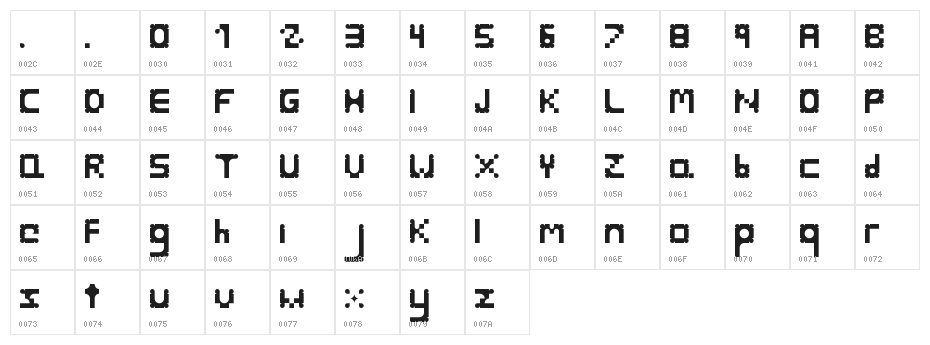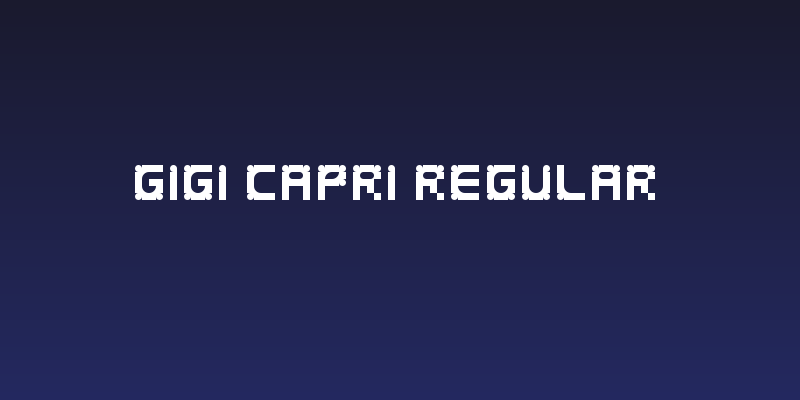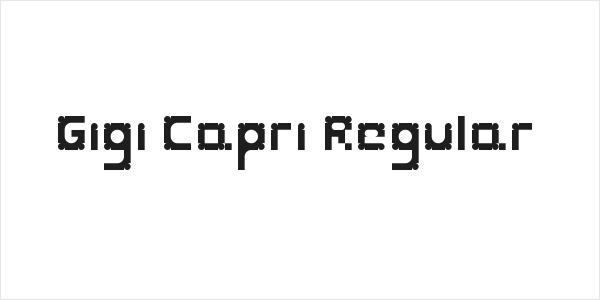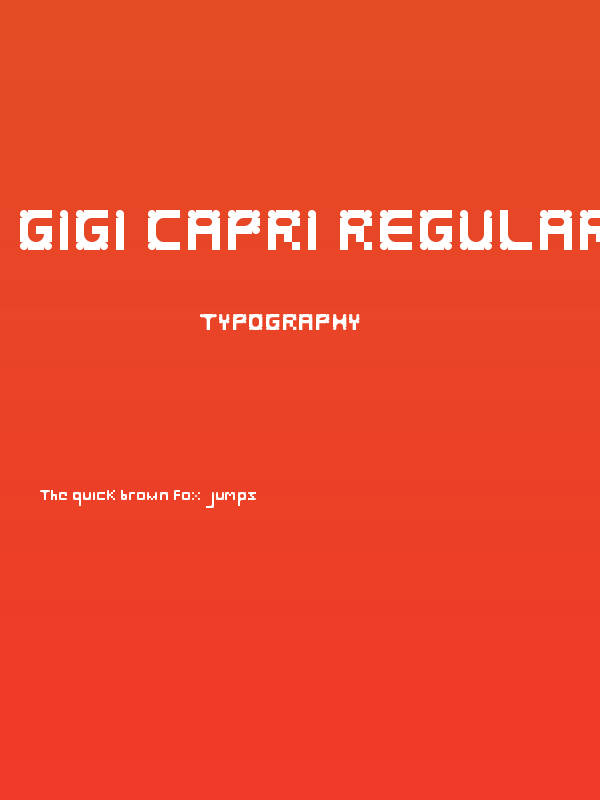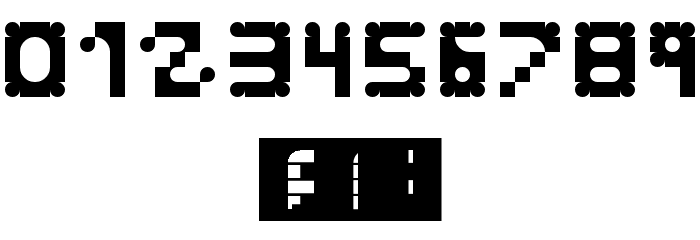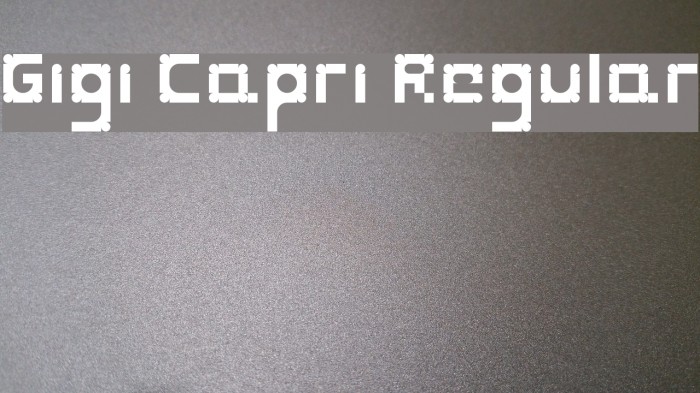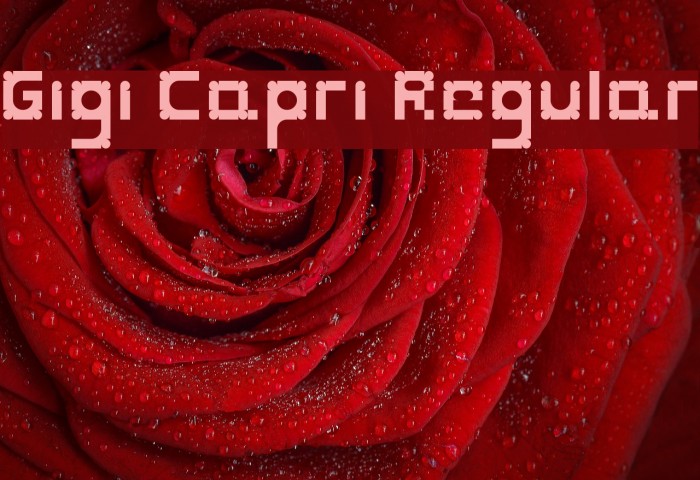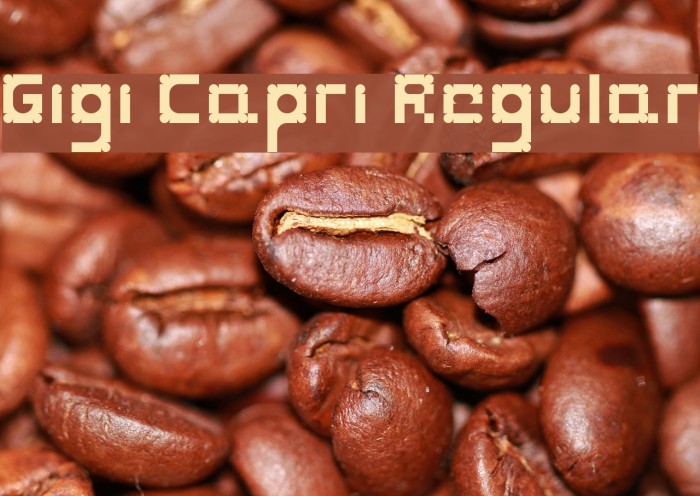
Gigi Capri Regular Font
Gigi Capri Regular Description
This font features a unique and playful design with rounded edges and distinct geometric shapes. Each character is constructed with a combination of solid blocks and circular cutouts, giving it a modern and futuristic appearance. The uppercase and lowercase letters maintain a consistent style, while the numbers and special characters follow the same design principles. The overall look is bold and eye-catching, making it suitable for creative and artistic projects.
GIGI-CAPRI-REGULAR UPPERCASE
GIGI-CAPRI-REGULAR LOWERCASE
GIGI-CAPRI-REGULAR OTHER CHARS